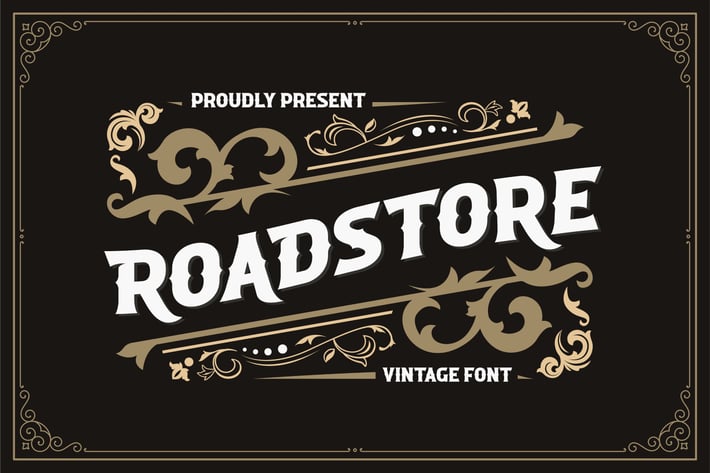
ROADSTORE - Vintage Font
Introducing our latest display typeface called ROADSTORE A unique Fonts with vintage taste can make your logotype become more interesting. Best Vintage font with special alternative glyphs, and multilingual support. inspired by the decorative arts and architecture movement
ROADSTORE fonts is perfect for your project and allows you to create designs, headlines, posters, logos, badges, t-shirts and many more that are beautiful. It is also best used for posts, logos, posters, certificates, labels and more.